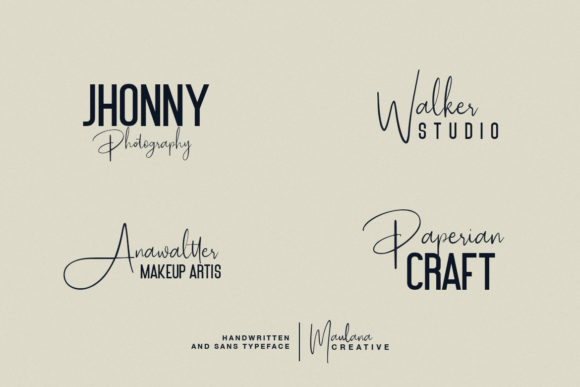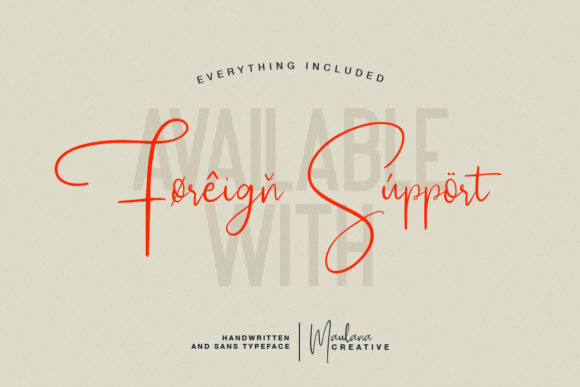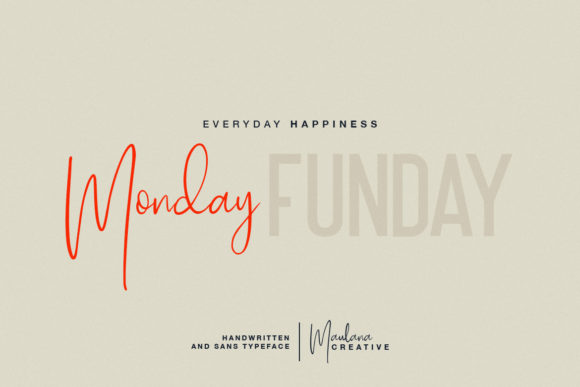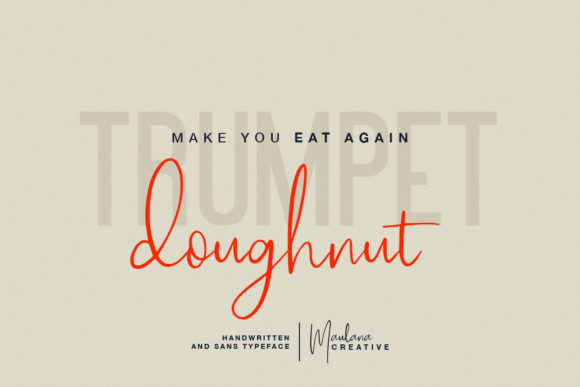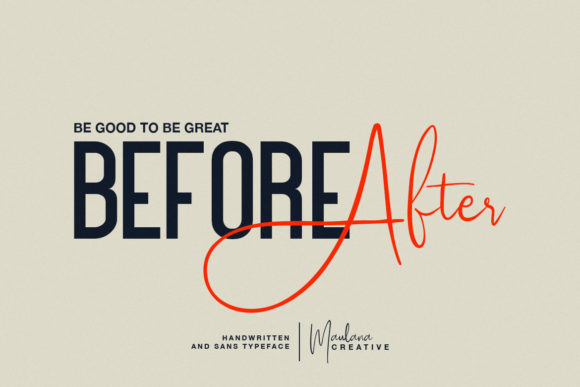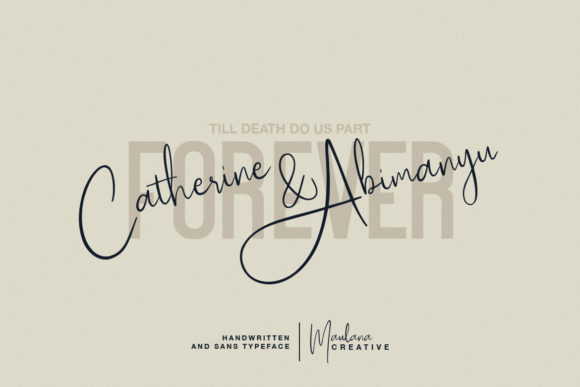
Introduction to Poliesster Font
Remember that moment when you’re working on a creative project and you’re stuck on the perfect font? The one that will elevate your design from good to amazing? For designers, finding that perfect font can be a game-changer. It’s what sets your work apart and makes it truly memorable.
Enter Poliesster Font, a gorgeous font duo that’s about to become your new best friend. With its bold lettering and rich alternates, this font is perfect for designers looking to add a touch of sophistication to their work. Whether you’re creating a signature, designing a logo, or working on a magazine cover, Poliesster Font is sure to impress.
Key Features of Poliesster Font
- Poliesster Font is designed to be highly legible and versatile, making it perfect for various design needs.
Honest Review: Poliesster Font
As a designer, I’m always on the lookout for high-quality design resources to elevate my creative projects. Recently, I stumbled upon the Poliesster Font, and I’m excited to share my honest review.
- Excellent legibility, even at small font sizes
⚠️ While the Poliesster Font is a great addition to any design resource library, it may not be suitable for all types of projects. The font’s playful nature may not be the best fit for formal or professional designs.
- May not be ideal for formal or professional projects
- Some users may find the font too quirky or distracting
Overall, I’m impressed with the Poliesster Font. Its unique design and high-quality files make it an excellent choice for designers working on creative projects. While it may not be suitable for all types of designs, it’s definitely worth adding to your design resource library.
How to Use Poliesster Font
Designing with Poliesster Font
Tips for Getting the Most Out of Poliesster Font
Common Use Cases for Poliesster Font
Poliesster Font is commonly used in logos, business cards, and other branding materials. It’s also a great choice for creating invitations, menus, and other design elements that require a high-quality, professional font.